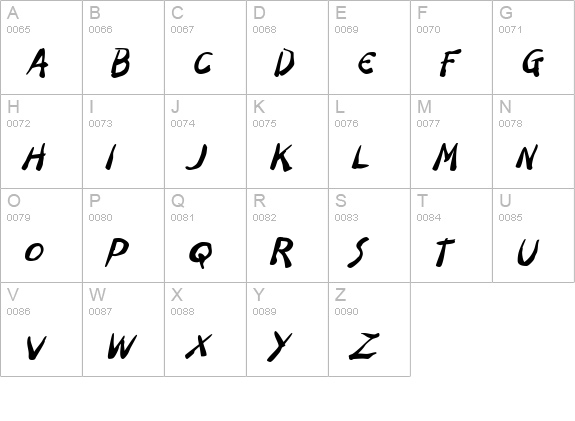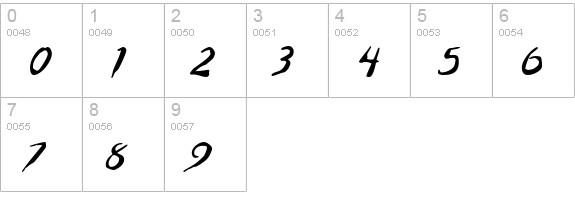
Dark Half BTN Oblique Font Details
Dark Half BTN Oblique is a distinctive, italic variant in the Dark typeface family \xE2\x80\x94 well suited to design and typography projects.
Dark Half BTN Oblique font is a stylish and modern typeface that adds a touch of sophistication to any design project. Its sleek, angular letterforms exude a sense of mystery and intrigue, making it perfect for use in branding, logos, and headlines. The slanted angle of the letters gives this font a dynamic and edgy look, making it stand out from the crowd. What's even better is that Dark Half BTN Oblique font is available for free download at FontsMarket.com. This means you can easily access this unique and eye-catching font to elevate your designs without any cost. Whether you're working on a poster, website, or any other creative project, Dark Half BTN Oblique font is sure to make a bold statement and leave a lasting impression. Download it now and unleash your creativity with this exceptional typeface.